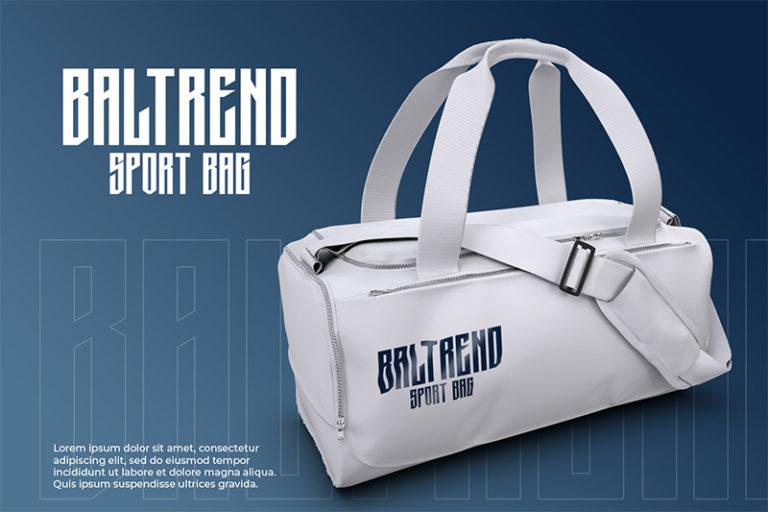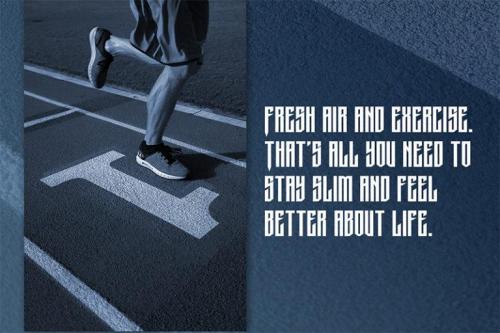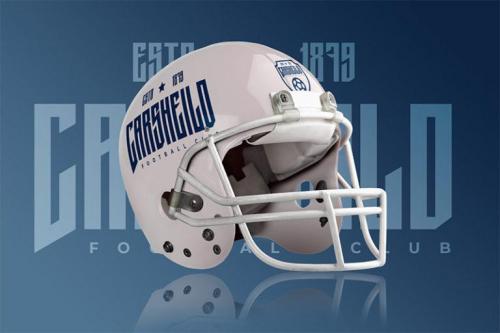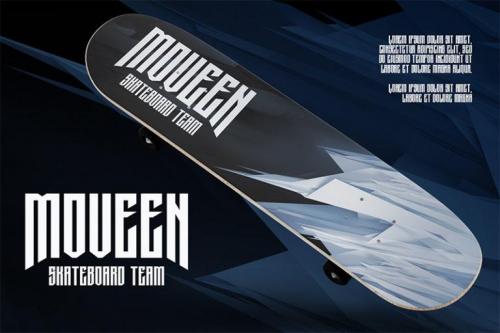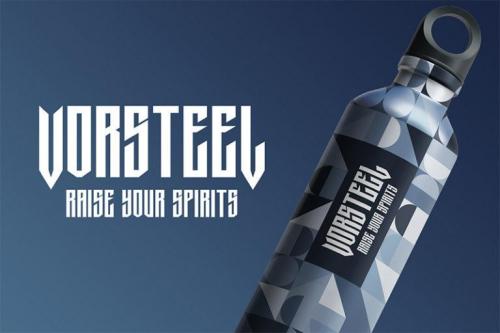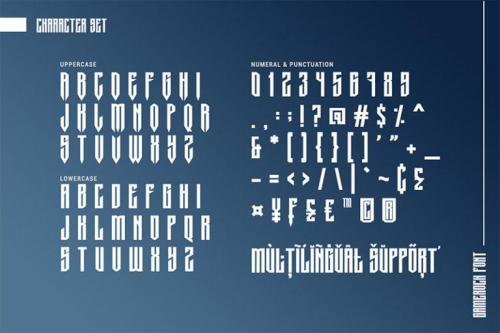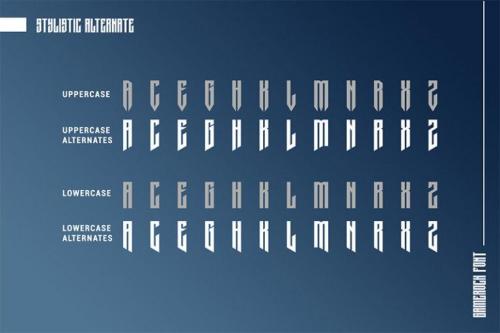
Gamerock is a classic sport font. Made for any professional project especially that related to the sports. Beside that, this font can be used for printing, branding and quotes.